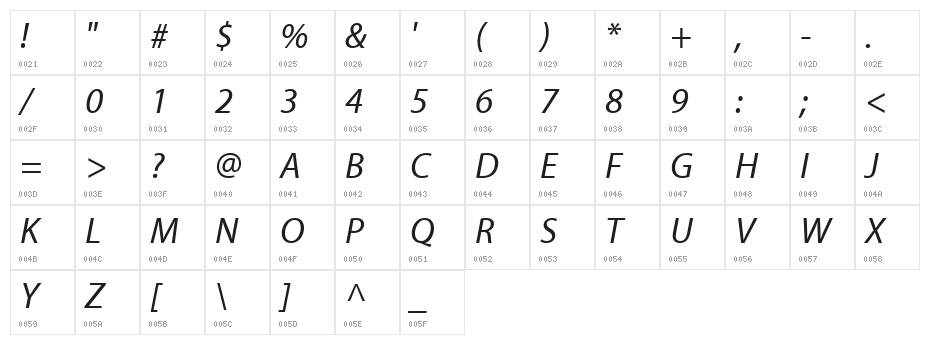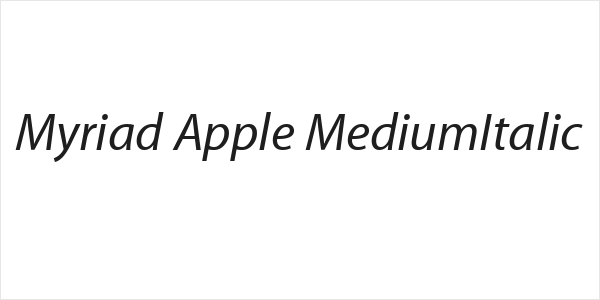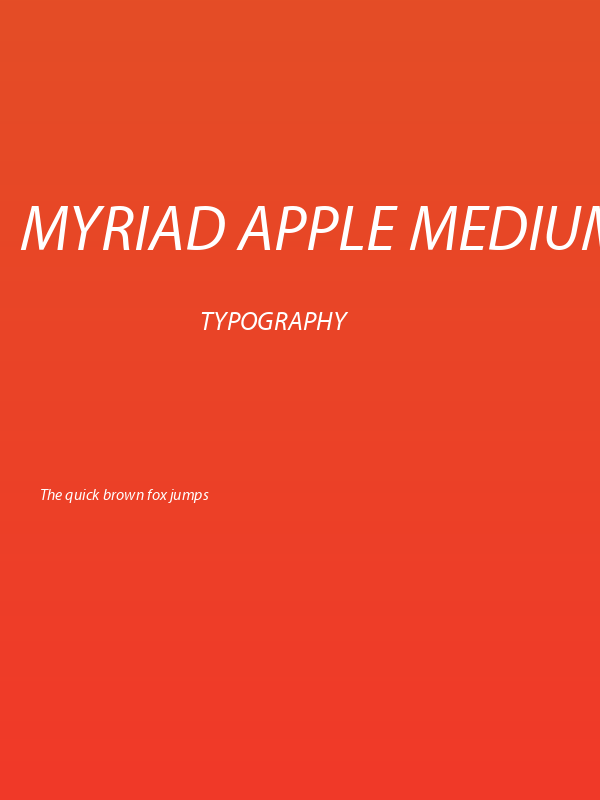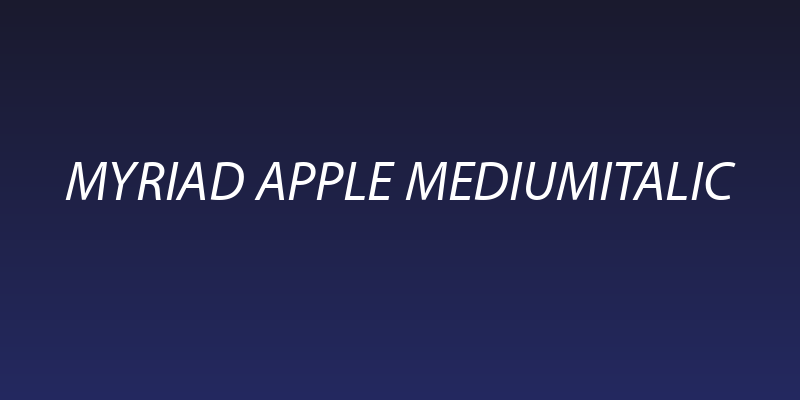
Myriad Apple MediumItalic Font
Myriad Apple MediumItalic Description
This typeface features a clean and modern sans-serif design with a slight italic slant, giving it a dynamic and forward-leaning appearance. The characters are well-proportioned, with smooth curves and a consistent stroke width that provides a harmonious and balanced look. The uppercase letters are bold and assertive, while the lowercase letters maintain a friendly and approachable feel. The numerals are clear and easily distinguishable, making them suitable for various applications. The special characters are well-integrated, maintaining the overall aesthetic of the font.